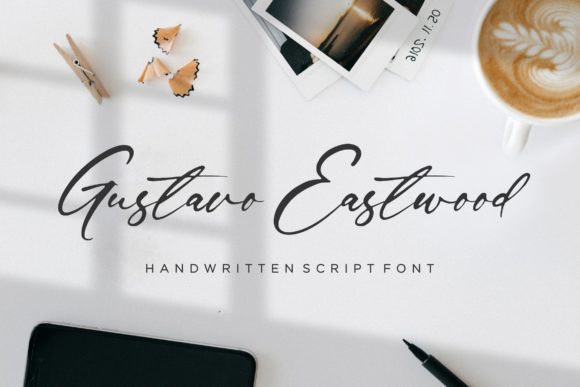
Gustavo Eastwood Font: Elevate Your Designs with Elegance and Sophistication
In the world of typography, fonts play a crucial role in conveying the tone and personality of a design. Among the numerous fonts available, Gustavo Eastwood stands out as a beautiful and refined script font that exudes class, elegance, and modernity. This versatile font is perfect for a wide range of applications, including logos, branding, invitations, stationery, wedding designs, social media posts, and more.
What Makes Gustavo Eastwood Font Special?
Gustavo Eastwood font is a masterpiece of typographic design, boasting a unique blend of classic and modern elements. Its elegant and refined appearance makes it an ideal choice for designers seeking to add a touch of sophistication to their work. The font’s modern look and feel ensure that it stays ahead of the curve, making it perfect for contemporary designs.
Key Features of Gustavo Eastwood Font
- Elegant and Refined Appearance: Gustavo Eastwood font features a beautiful, flowing script that adds a touch of elegance to any design.
- Classy and Modern Look: The font’s classic and modern elements combine to create a unique and sophisticated appearance.
- Versatile: Gustavo Eastwood font can be used for a wide range of applications, from logos and branding to invitations and social media posts.
- Easy to Read: The font’s clear and legible design ensures that it remains easy to read, even at smaller sizes.
Uses of Gustavo Eastwood Font
Gustavo Eastwood font is an incredibly versatile typeface that can be used in various design applications. Some of the most popular uses of this font include:
- Logos and Branding: Create a lasting impression with a custom logo or brand identity that showcases the elegance and sophistication of Gustavo Eastwood font.
- Invitations and Stationery: Add a touch of class to your invitations, stationery, and other paper goods with this beautiful script font.
- Wedding Designs: Make your wedding designs truly unforgettable with Gustavo Eastwood font, perfect for wedding invitations, programs, and more.
- Social Media Posts: Elevate your social media presence with eye-catching posts and graphics featuring Gustavo Eastwood font.
Tips for Using Gustavo Eastwood Font Effectively
To get the most out of Gustavo Eastwood font, follow these expert tips:
- Pair with Complementary Fonts: Combine Gustavo Eastwood font with complementary fonts to create visual interest and hierarchy in your designs.
- Use for Headings and Titles: Take advantage of the font’s elegant appearance by using it for headings and titles, and pairing it with a simpler font for body text.
- Experiment with Colors and Textures: Don’t be afraid to try out different colors and textures to add depth and visual interest to your designs featuring Gustavo Eastwood font.
Why Choose Gustavo Eastwood Font?
With so many fonts available, why choose Gustavo Eastwood font for your designs? Here are just a few compelling reasons:
- Unique and Sophisticated Appearance: Gustavo Eastwood font offers a distinctive and refined appearance that sets it apart from other fonts.
- Highly Versatile: This font can be used in a wide range of applications, making it a valuable addition to any designer’s toolkit.
- Easy to Read and Use: Gustavo Eastwood font is clear, legible, and easy to use, making it perfect for both print and digital designs.
In conclusion, Gustavo Eastwood font is a beautiful and refined script font that offers a unique blend of elegance, sophistication, and modernity. Its versatility, readability, and ease of use make it an excellent choice for designers seeking to elevate their work. Whether you’re creating logos, branding, invitations, or social media posts, Gustavo Eastwood font is sure to make a lasting impression.